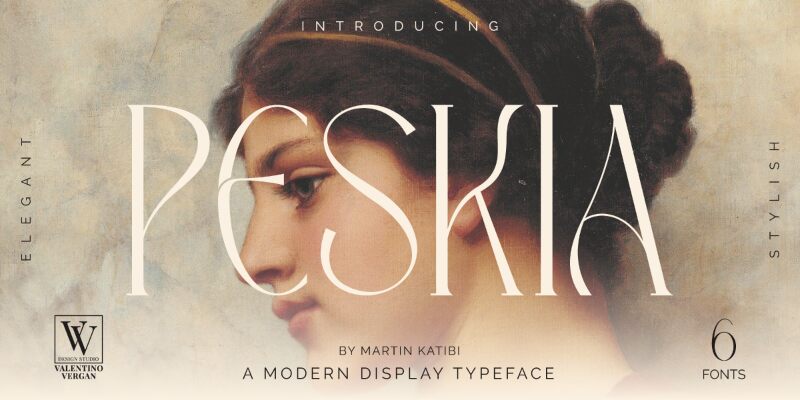
Peskia, a captivating creation by Valentino Vergan, is an exceptional display font that exudes a retro charm. With its semi-light weight and condensed width, Peskia adds an alluring touch to any project it graces. Whether you're working on vintage-inspired posters, nostalgic branding campaigns, or eye-catching signage designs, this font effortlessly captures the essence of the bygone era. Its unique blend of elegance and playfulness makes Peskia ideal for fashion editorials, album covers, or even website headers seeking a distinctively retro appeal. Let Peskia transport your audience to the golden age of design with its timeless aesthetic.